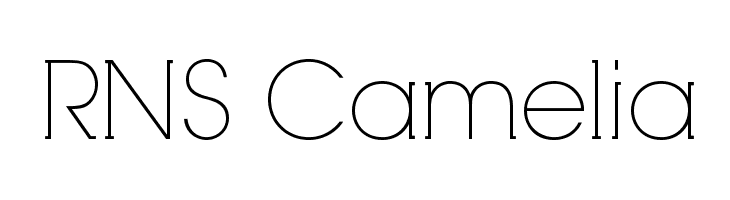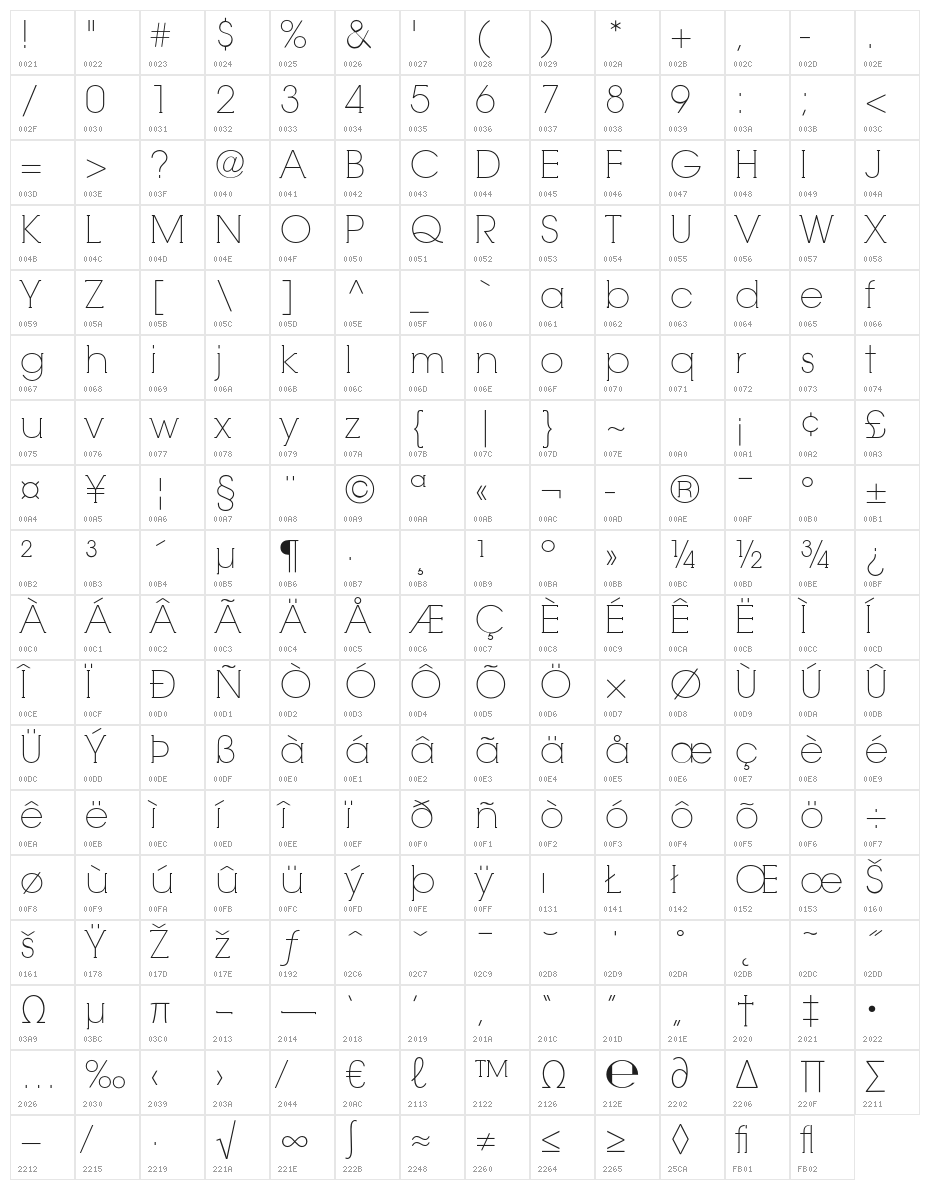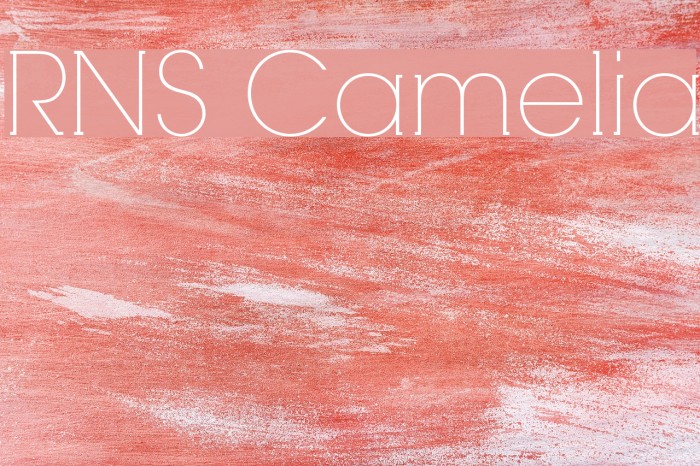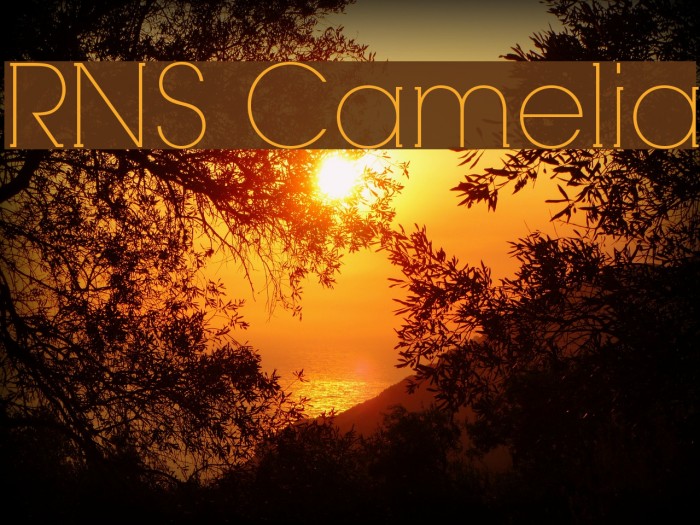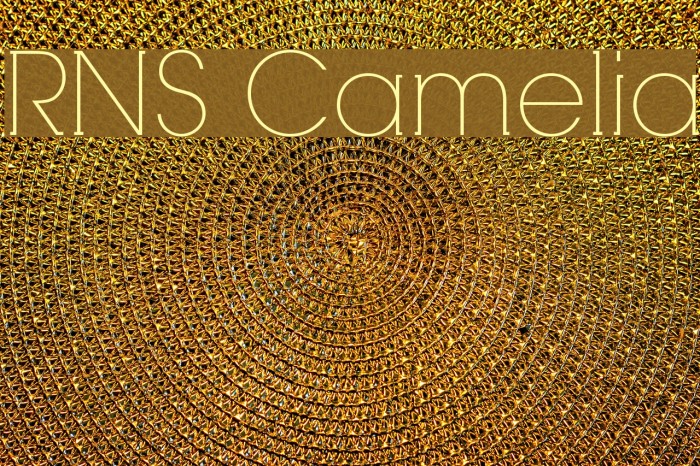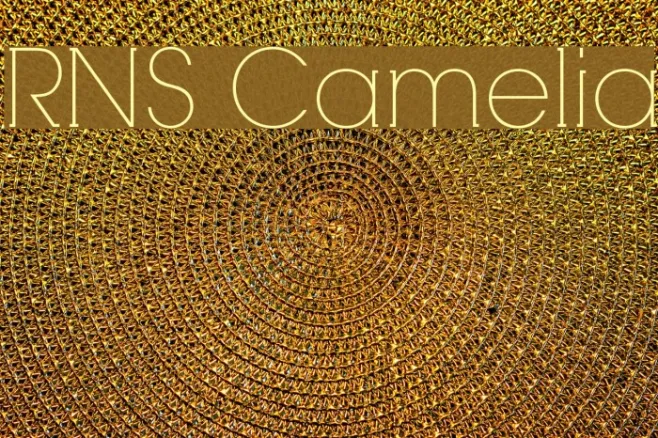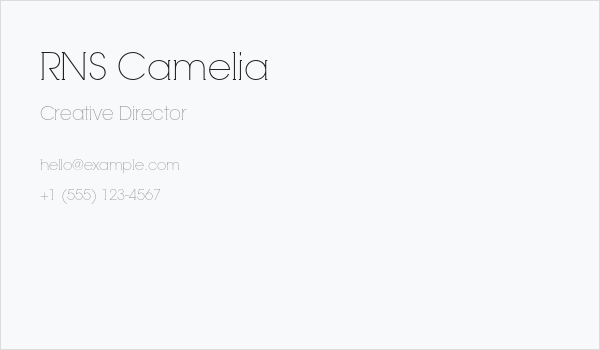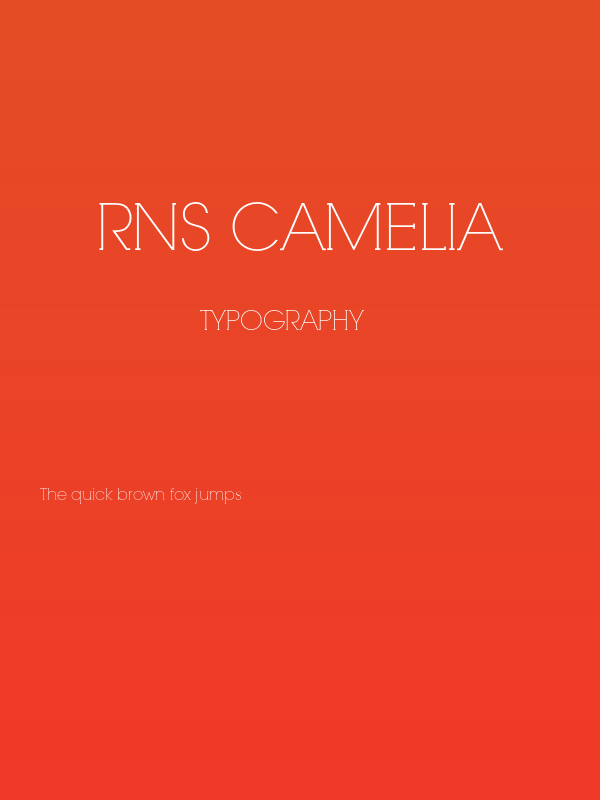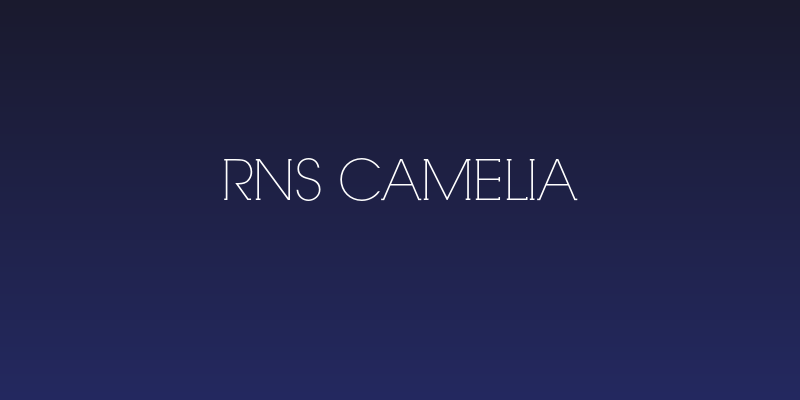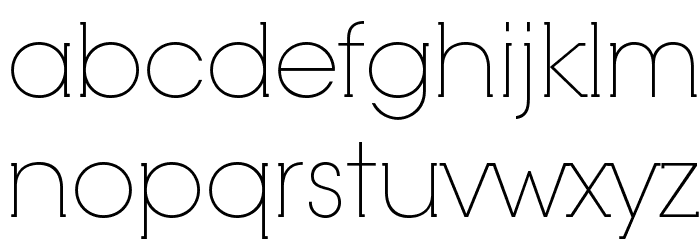
RNS Camelia Font
RNS Camelia Description
This font features a clean and modern sans-serif style with a geometric structure. The characters are crafted with precision, showcasing a harmonious balance between curves and straight lines. The uppercase letters are tall and elegant, while the lowercase letters maintain a consistent height, providing a uniform appearance. The numerals are clear and legible, making them suitable for various applications. Special characters are included, adding versatility to the font. The overall design is sleek and minimalistic, making it ideal for contemporary projects.
| Proposed Projects | Ideal for branding, editorial design, web design, and advertising materials. |